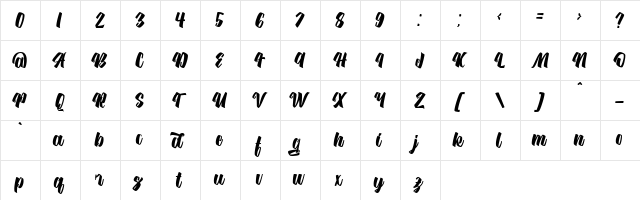
Hilgreds Script Regular
| Foundry | FallenGraphic |
| Designer | Vava Aryanto |
Design Context for Hilgreds Script Typeface
Hilgreds Script brings a calligraphic fluidity to the page — its connecting strokes and expressive curves give it an unmistakably human quality.
Font Pairing: Combine Hilgreds Script with a simple geometric sans for maximum contrast — the tension between flowing curves and clean structure is a classic typographic pairing.
Pro Tip: Use Hilgreds Script for short runs of text — names, titles, or taglines. Extended body copy in script faces tires the eye quickly.